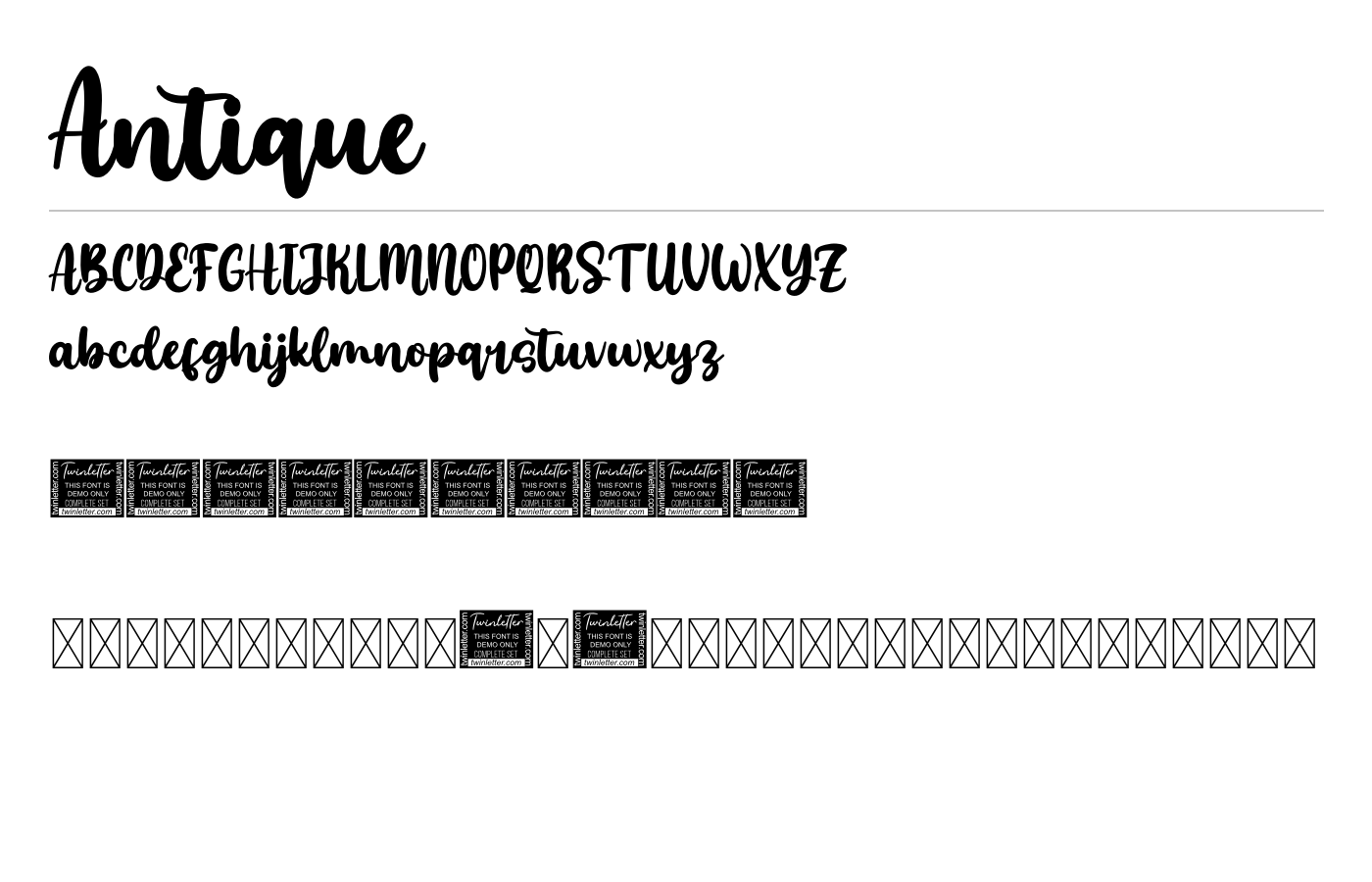
Antique is a playful and charming script font with a bold weight and smooth, rounded strokes that give it a friendly, hand-lettered feel. Its lively letterforms, featuring a single-story 'a' and 'g,' along with a consistent x-height and moderate contrast, make it perfect for creative branding, invitations, and casual headlines where warmth and personality are desired. This font works well in designs needing a personal touch without sacrificing readability or style.
Antique Font
About Antique Font